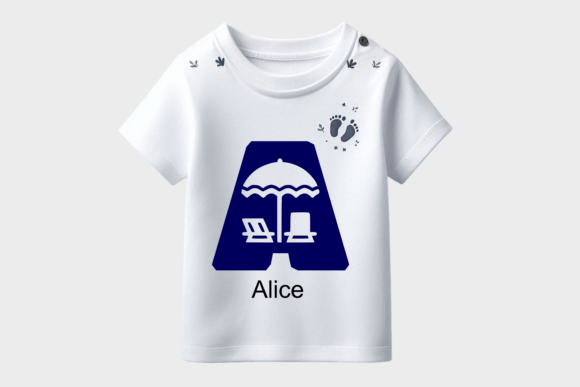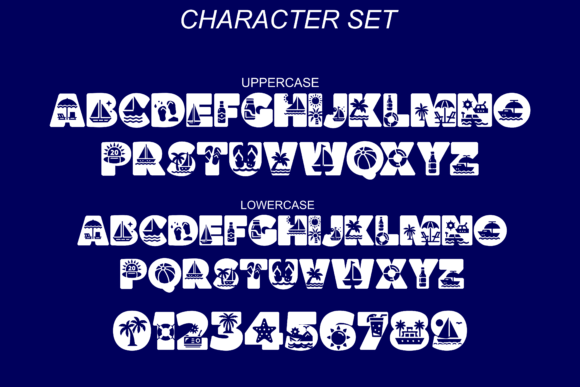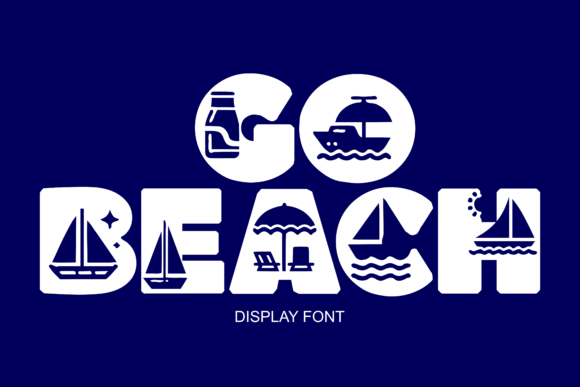
Discover the Mesmerizing Charm of Go Beach Font
I’ll never forget the design project that led me to discover Go Beach font. I was working on a summer-themed branding campaign for a beachside resort, and I was struggling to find the perfect font that captured the essence of the ocean and sun-kissed sand. The client wanted something that exuded warmth, playfulness, and a touch of sophistication. That’s when I stumbled upon Go Beach font, and it was love at first sight! ✨
A Personal Review of Go Beach Font
- ✨ Unique blend of charisma and mystery that adds a mesmerizing charm to my designs
- ✅ Careful detailing that radiates warmth and vigor, perfect for creative projects
- 💫 Supports OpenType features, glyphs, and stylistic alternates, giving me endless design possibilities
- 👍 Highly legible, even at smaller font sizes, making it perfect for body text or headings
- 🤔 Limited availability of Cyrillic or non-English characters, which might be a drawback for some users
- ⚠️ Some users might find the font a bit too ornate or decorative for certain design projects
The Designer’s Inspiration Behind Go Beach Font
The story behind Go Beach font is one of passion and creativity. According to the designer, the font was inspired by the carefree spirit of summer and the ocean’s mesmerizing charm. The designer wanted to create a font that captured the essence of a beachside vacation, with all its warmth, playfulness, and sense of adventure. The result is a font that’s both elegant and lively, perfect for designs that require a touch of whimsy and sophistication.
| Font Name | Go Beach Font |
| Author | Infontree |
Q: What type of projects is Go Beach font best suited for?
A: Go Beach font is perfect for creative projects, branding campaigns, and designs that require a touch of whimsy and sophistication, such as summer-themed designs, beachside resort branding, or lifestyle campaigns.
Q: Is Go Beach font available in different languages?
A: Go Beach font supports a range of languages, but it may have limited availability of Cyrillic or non-English characters.
Q: Can I use Go Beach font in combination with other fonts?
A: Absolutely! Go Beach font pairs well with a range of fonts, from elegant scripts to modern sans-serifs. Feel free to experiment with different font combinations to find the perfect look for your design.